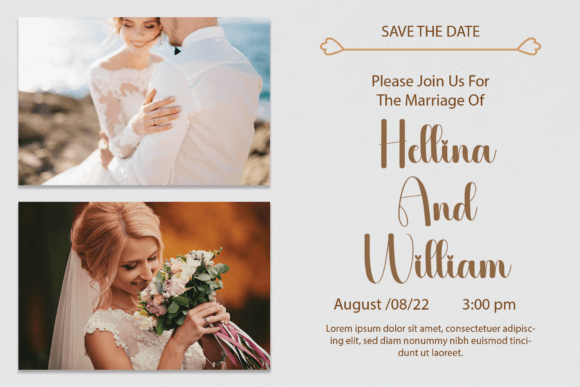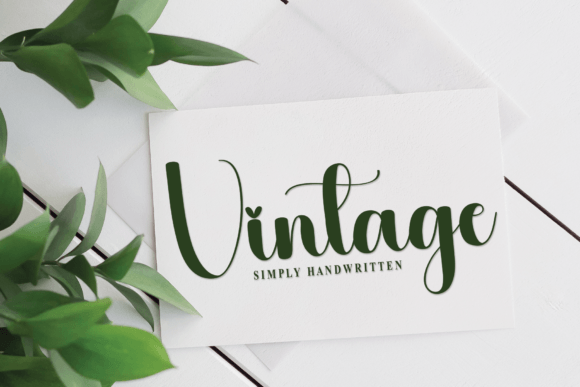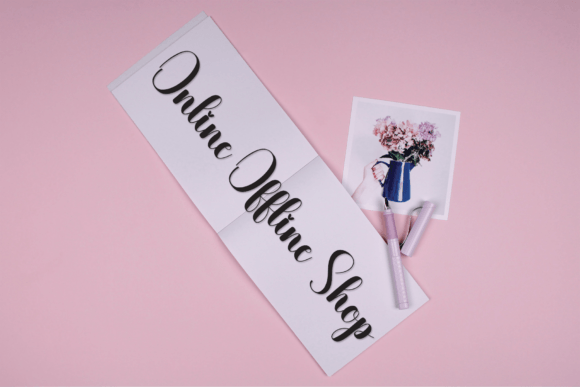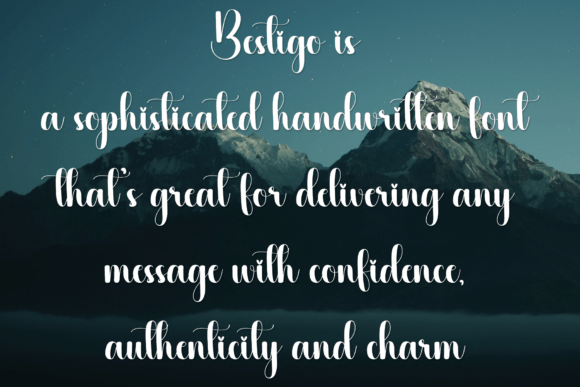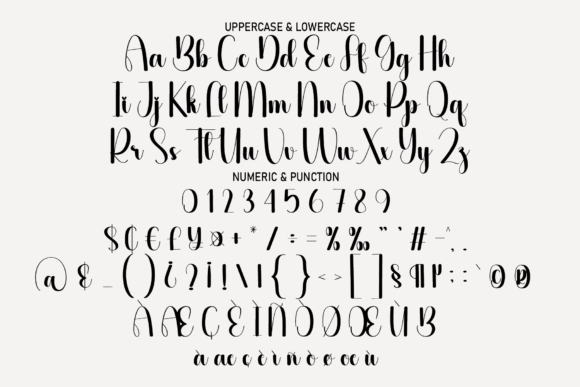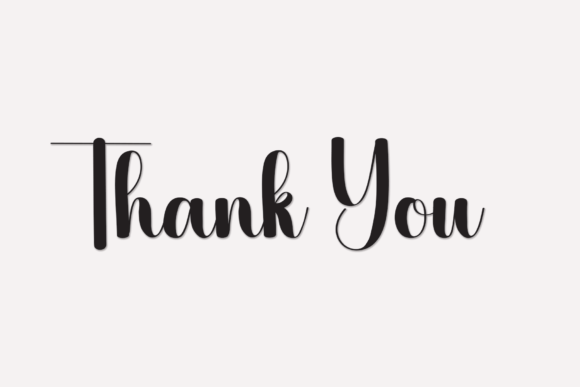
Introducing Bestigo Font: The Sweet and Delicate Handwritten Font for Romantic Designs
Are you a designer or crafter looking for a font that can add a touch of romance and personality to your designs? Look no further than Bestigo Font! This sweet and delicate handwritten font is perfect for creating wedding invitations, cards, and other designs that require a romantic and personalized touch.
What Makes Bestigo Font Special?
Bestigo Font is a unique and charming font that is sure to capture the hearts of anyone who sees it. Its dainty and joyful design makes it ideal for a variety of creative projects, from wedding stationery to social media graphics. The font’s delicate lines and curves give it a whimsical feel that is both feminine and elegant.
One of the best things about Bestigo Font is its versatility. It can be used for a wide range of design projects, including:
Why Choose Bestigo Font?
There are many reasons why Bestigo Font stands out from other fonts. Here are just a few:
- Unique and eye-catching design: Bestigo Font has a one-of-a-kind design that is sure to grab attention and make your designs stand out.
- Romantic and feminine feel: The font’s delicate lines and curves give it a romantic and feminine feel that is perfect for wedding and love-themed designs.
- Easy to read: Despite its delicate design, Bestigo Font is easy to read and understand, making it perfect for body text and headlines.
- High-quality and versatile: Bestigo Font is a high-quality font that can be used for a wide range of design projects, from digital designs to print materials.
How to Use Bestigo Font in Your Designs
Using Bestigo Font in your designs is easy! Here are a few tips to get you started:
- Pair it with other fonts: Bestigo Font pairs well with other fonts, such as sans-serif fonts and script fonts. Experiment with different font combinations to find the perfect look for your design.
- Use it for headlines and titles: Bestigo Font is perfect for headlines and titles, where its delicate design can really shine.
- Add some color: Bestigo Font looks great in a variety of colors, from soft pastels to bold brights. Experiment with different colors to find the perfect look for your design.
Bestigo Font is a sweet and delicate handwritten font that is perfect for designers and crafters looking to add a touch of romance and personality to their designs. Its unique and eye-catching design, romantic and feminine feel, and versatility make it a great choice for a wide range of creative projects. Whether you’re designing wedding invitations, social media graphics, or blog headers, Bestigo Font is sure to make your designs stand out.